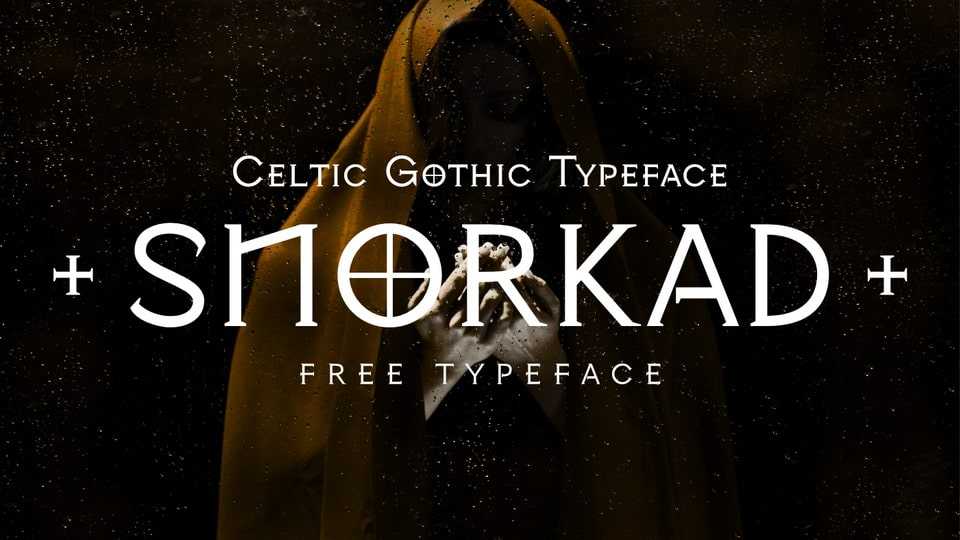
Download Snorkad font, a fascinating Celtic Gothic style typeface, inspired by the movie “The Pope’s Exorcist”. It’s also reminds of video games like “Diablo”, “Doom” and “TES:V”.
Designer: Leandro Ferreira